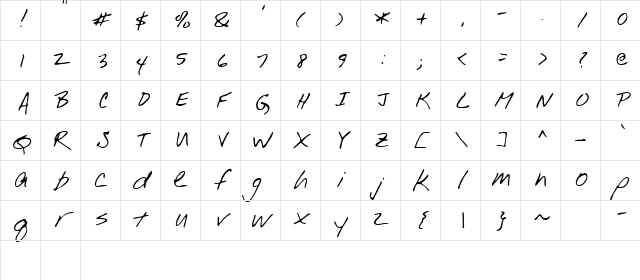
Leonard Regular
Leonard Family
Complete Leonard Regular glyph index. Displaying only characters natively supported by Leonard Regular font.
Design Context for Leonard
Leonard is a composed and adaptable typeface that performs quietly and consistently across a wide range of design contexts.
Pro Tip: Use Leonard in both headline and body roles to test its range before committing to a single application.